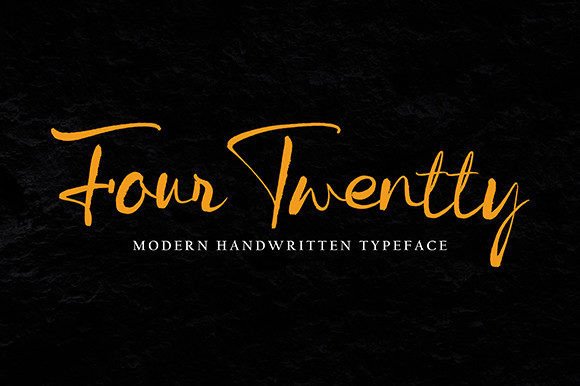
Dive into the world of elegance and charm with Four Twentty, a script font that exudes sophistication and grace. Its meticulously crafted curves and delicate swashes add an alluring touch to any design, making it the perfect choice for creating captivating invitations, wedding stationery, and heartfelt messages.
With Four Twentty, you'll have the power to transform ordinary words into enchanting expressions of love, joy, and gratitude. Its timeless beauty will leave a lasting impression on your recipients, making your creations truly unforgettable. Let your imagination soar as you explore the endless possibilities this font offers, adding a touch of magic to every project.
Whether you're a seasoned designer or just starting your creative journey, Four Twentty is the perfect font to elevate your designs and make a lasting impact. Its versatility makes it suitable for a wide range of projects, from elegant wedding invitations to whimsical greeting cards.
Experience the allure of Four Twentty and let your creativity flow freely. Embrace the beauty of handwritten artistry and add a touch of personal charm to your designs. With Four Twentty, the possibilities are endless.
**Features:**
* Stylish and trendy handwritten script font
* Delicate curves and swashes for added elegance
* Perfect for invitations, wedding stationery, and heartfelt messages
* Versatile for a wide range of design projects
* Elevate your designs with its timeless beauty
**Benefits:**
* Create captivating designs that leave a lasting impression
* Add a touch of personal charm to your creations
* Unleash your creativity and explore endless possibilities
* Stand out from the crowd with unique and stylish designs